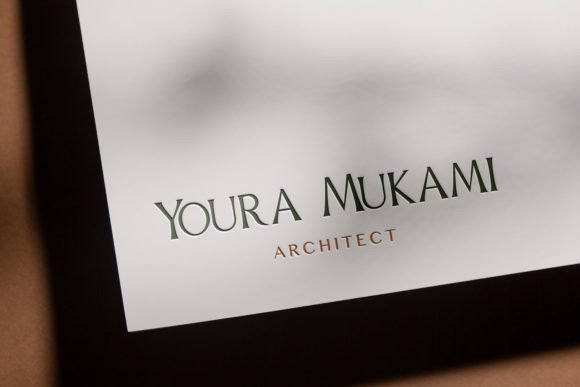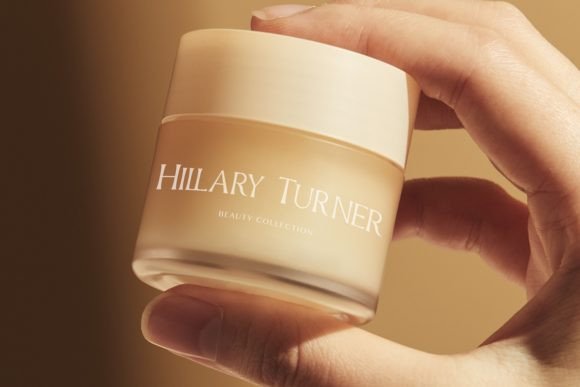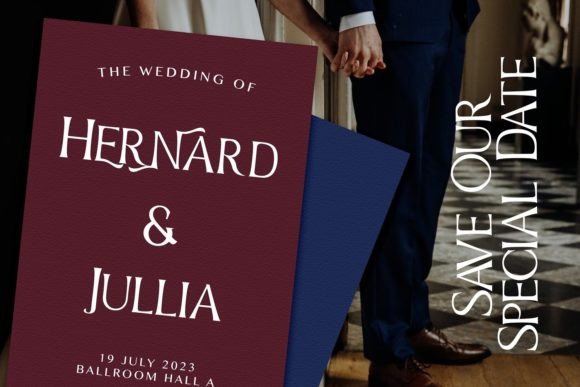
Introduction to Purwatype Font
Purwatype is a modern and stylish serif font that combines classic elegance with contemporary flair.
Its clean lines and balanced proportions create a sophisticated and refined look Perfect for editorial designs, branding projects, or upscale packaging, Purwatype adds a touch of luxury and professionalism to any composition.
Why Choose Purwatype Font?
Purwatype Font offers exceptional quality and versatility, making it a valuable addition to your design toolkit. Whether you’re creating for personal projects or commercial use, Purwatype Font delivers professional results.